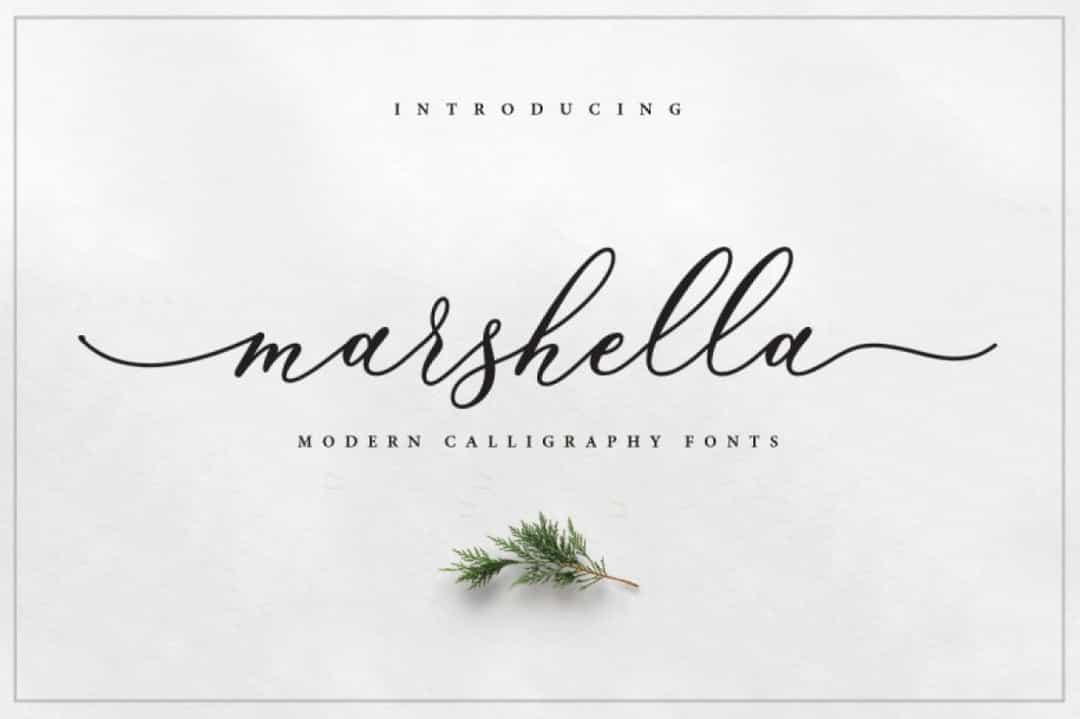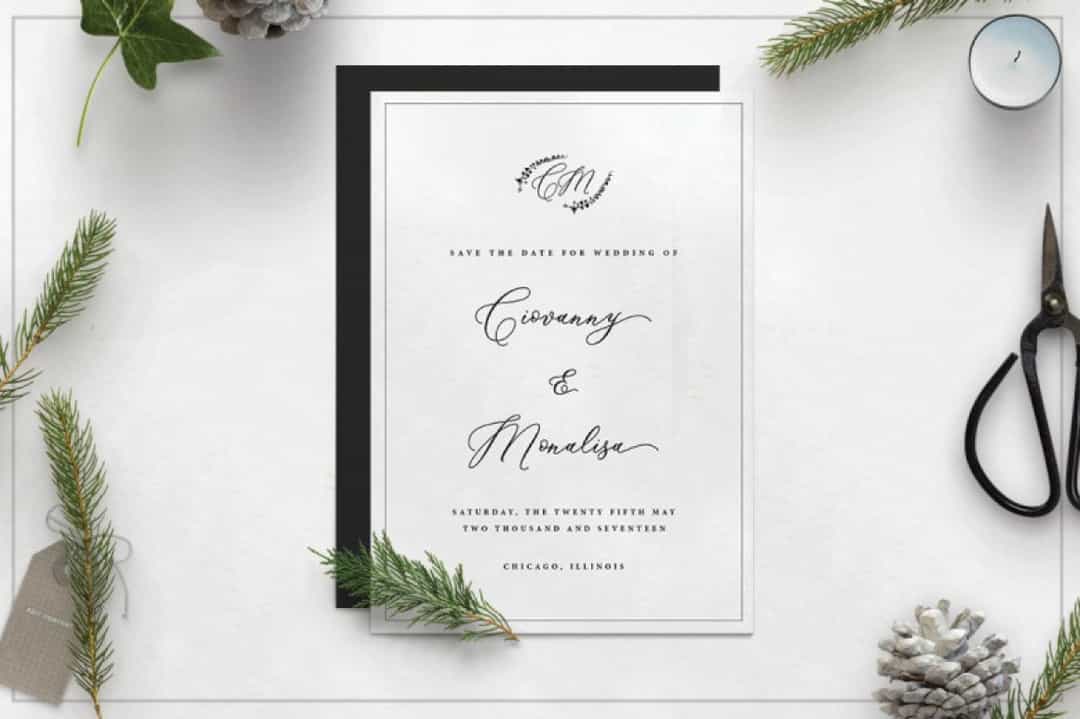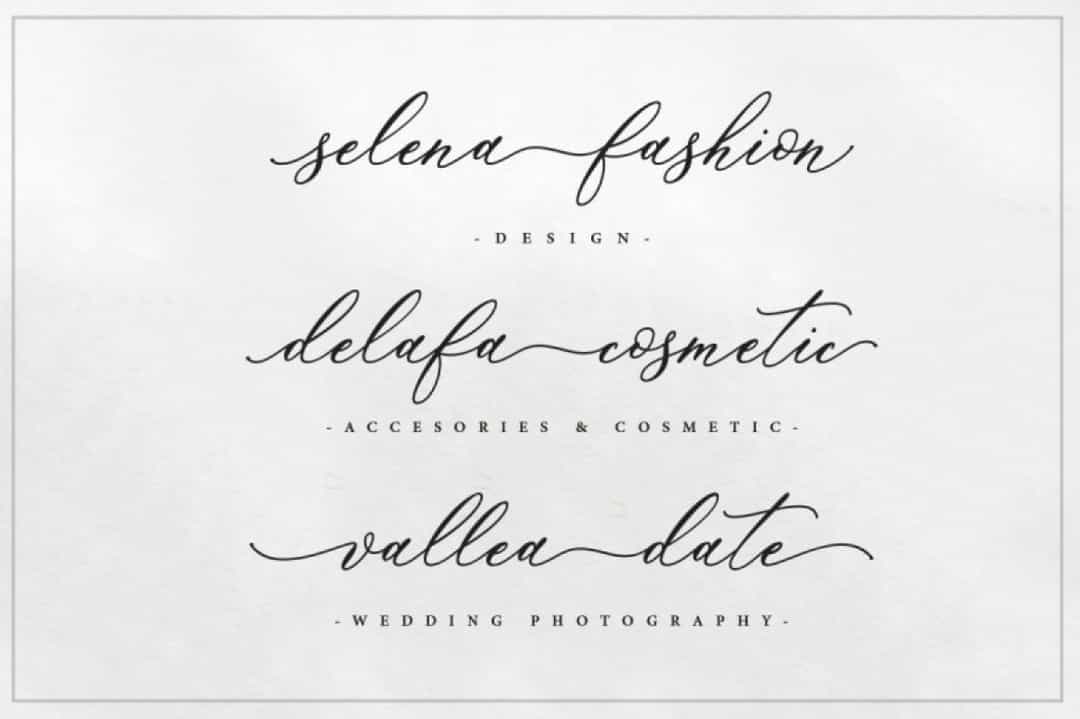
Marshella script font is an elegant contemporary calligraphy font designed specifically to meet logotype, web header and fashion projects as well as wedding card designs. Santyana offers elegant styling as an additional Marshella font or its Italic counterpart – as well as offering uppercase letters with punctuation marks, numbers and multilingual support.